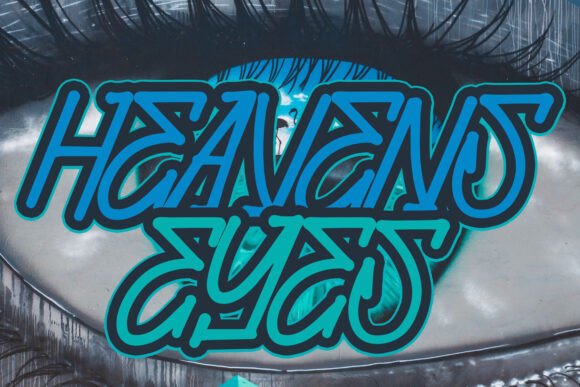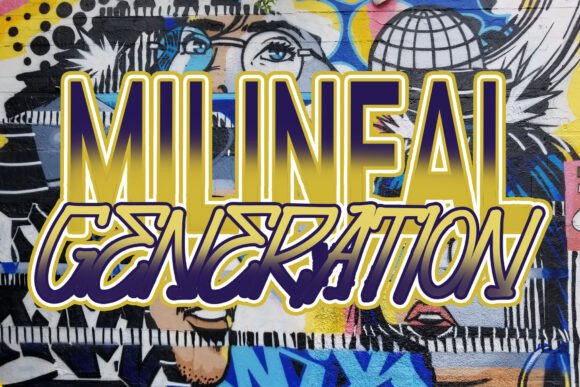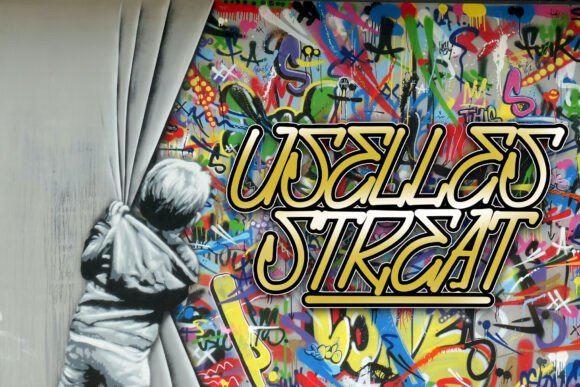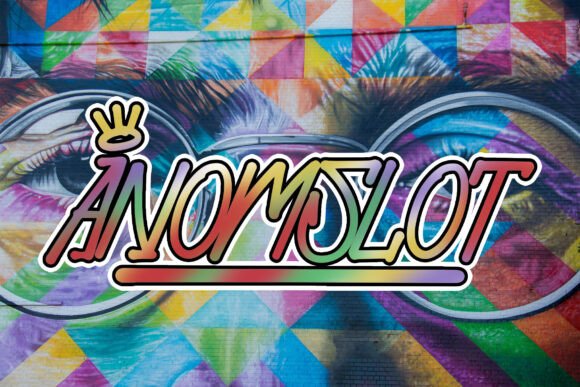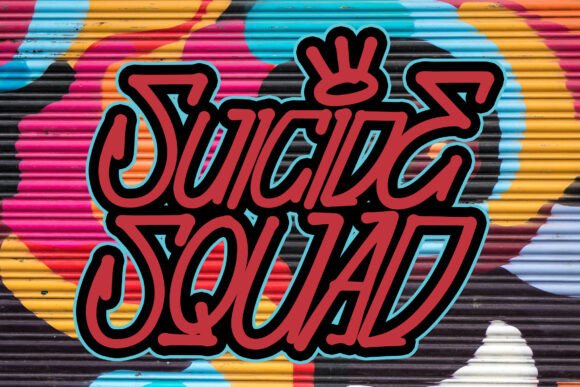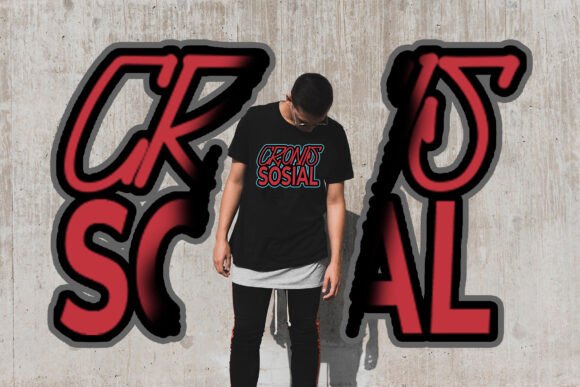
Eizarda Font: Elevate Your Designs with a Bold Monoline Brush Style
In the world of typography, fonts play a crucial role in defining the visual identity of a design. For designers and crafters looking to add a unique touch to their projects, Eizarda Font stands out as an exceptional choice. This article explores the features, benefits, and creative applications of Eizarda, a bold monoline brush font that can transform your designs.
What is Eizarda Font?
EIZARDA is a bold monoline brush font that has been meticulously crafted with unique character shapes. Unlike traditional fonts, Eizarda boasts a clean yet artistic style that effortlessly blends modernity with creativity. This distinctive combination makes it an ideal choice for designers seeking to enhance the graphic appearance of their projects.
Key Features of Eizarda Font
• Bold Monoline Brush Style: Eizarda’s bold monoline brush style gives it a contemporary look that can instantly elevate your designs.
• Unique Character Shapes: Each character in Eizarda has been uniquely designed, offering a fresh alternative to conventional typography.
• Clean and Artistic: The font’s clean lines and artistic flair make it versatile for various design applications.
Benefits of Using Eizarda Font
Eizarda Font offers numerous benefits that make it a valuable addition to any designer’s toolkit:
• Enhances Visual Appeal: Eizarda’s distinctive style can significantly enhance the visual appeal of your designs, making them stand out.
• Versatility: Suitable for a wide range of projects, from logos and branding to posters and creative endeavors.
• Easy to Read: Despite its bold style, Eizarda maintains readability, ensuring your message is conveyed effectively.
• Time-Saving: With Eizarda, you can achieve professional-looking results quickly, saving time in the design process.
Ideal Applications for Eizarda Font
Eizarda’s versatility makes it suitable for various design projects. Here are some ideal applications:
• Logos and Branding: Create memorable logos and brand identities with Eizarda’s unique and bold style.
• Posters and Flyers: Add an artistic touch to your posters and flyers, making them more engaging and eye-catching.
• Creative Projects: Perfect for creative endeavors such as brochures, packaging, and digital content that require a distinct look.
Tips for Maximizing Eizarda’s Potential
To get the most out of Eizarda Font, consider the following tips:
• Pair with Complementary Fonts: Combine Eizarda with simpler fonts to create contrast and hierarchy in your designs.
• Experiment with Colors: Take advantage of Eizarda’s bold style by experimenting with vibrant colors that match your brand’s palette.
• Use Appropriate Sizes: Ensure that the font size is appropriate for the medium. Larger sizes for posters, smaller for digital content.
Eizarda Font is a powerful tool for designers and crafters looking to infuse their projects with a bold, artistic flair. Its unique monoline brush style, combined with clean and artistic character shapes, makes it an excellent choice for a variety of design applications. By incorporating Eizarda into your typography arsenal, you can create visually stunning and memorable designs that stand out in any medium.
Whether you’re working on logos, branding, posters, or creative projects, Eizarda Font is sure to add a distinct and attractive touch, elevating your designs to new heights.